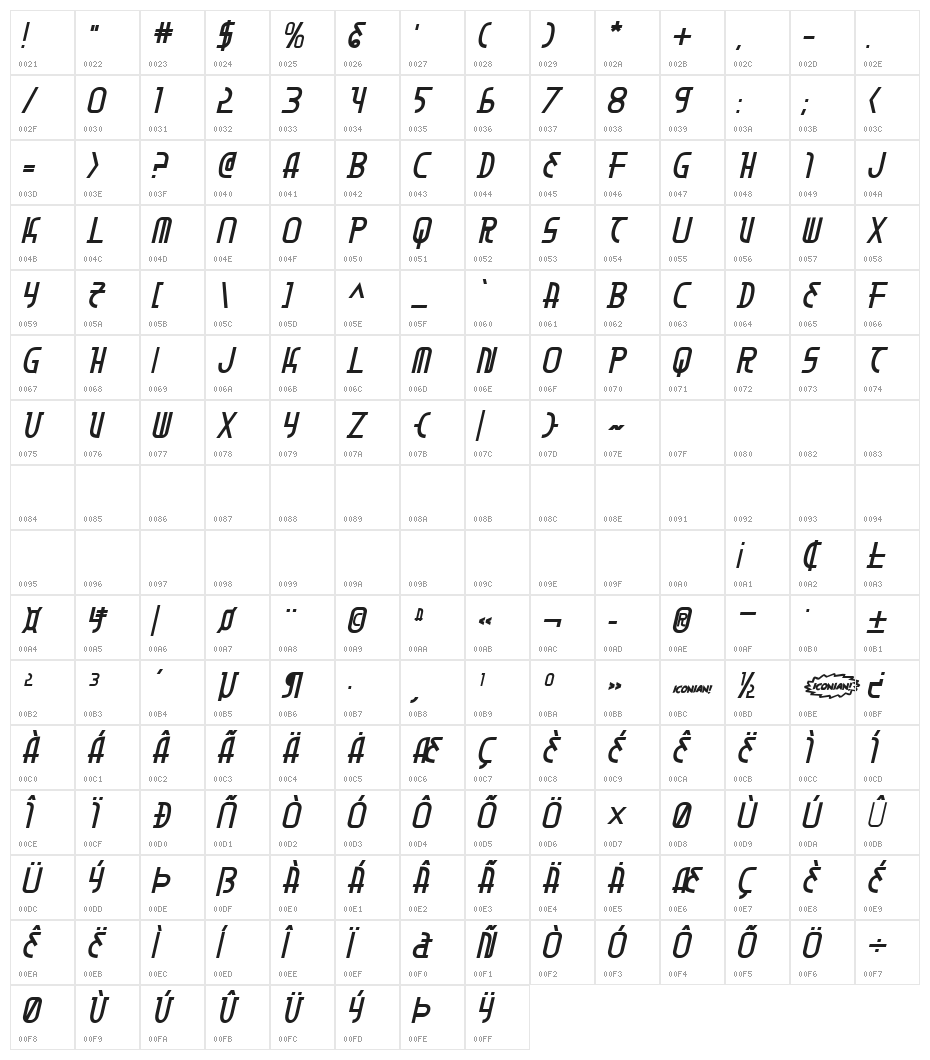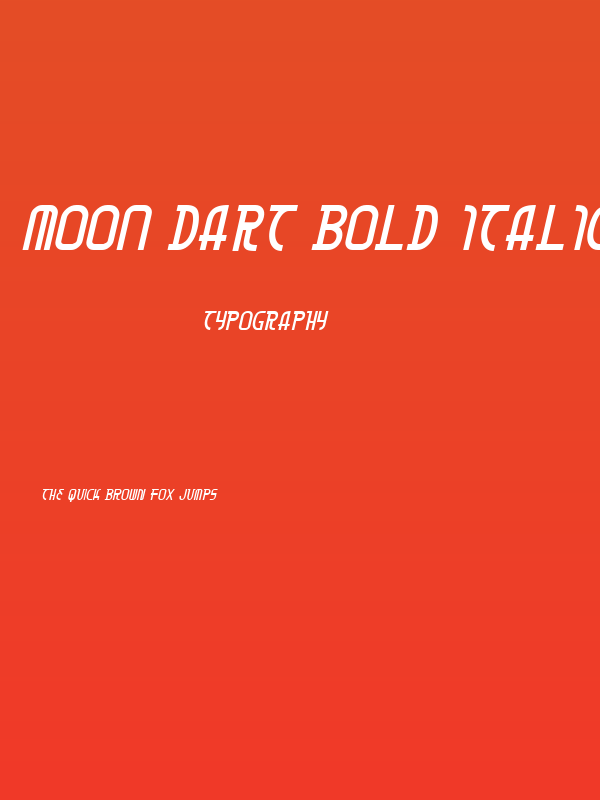
Moon Dart Bold Italic Font
Moon Dart Bold Italic Description
This font features a bold and italicized style with a futuristic and dynamic appearance. The characters are slightly slanted, adding a sense of motion and speed. The strokes are thick and consistent, providing a strong visual impact. The design includes unique angular cuts and geometric shapes, giving it a modern and edgy look. The uppercase and lowercase letters maintain a uniform style, while the numerals and special characters complement the overall aesthetic. This font is ideal for projects that require a bold and contemporary touch.